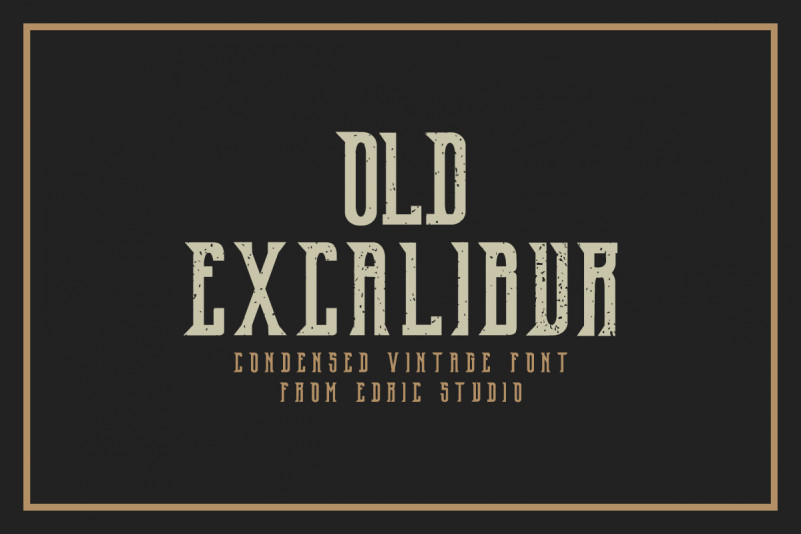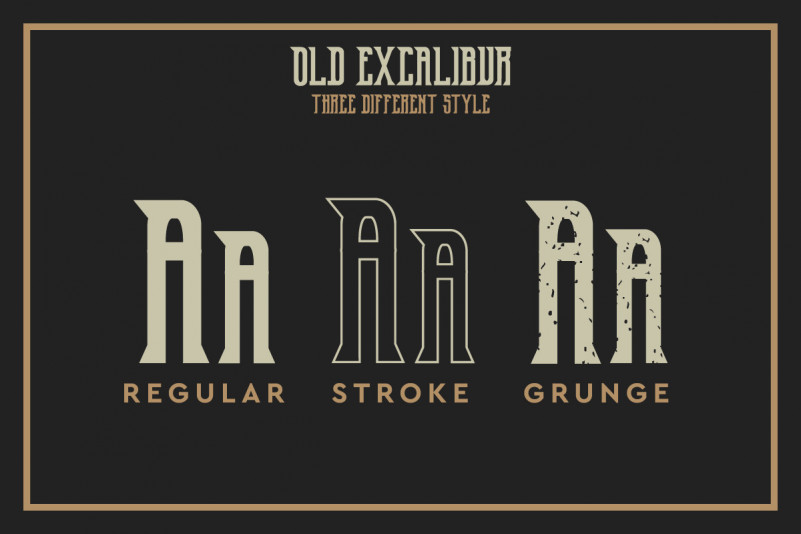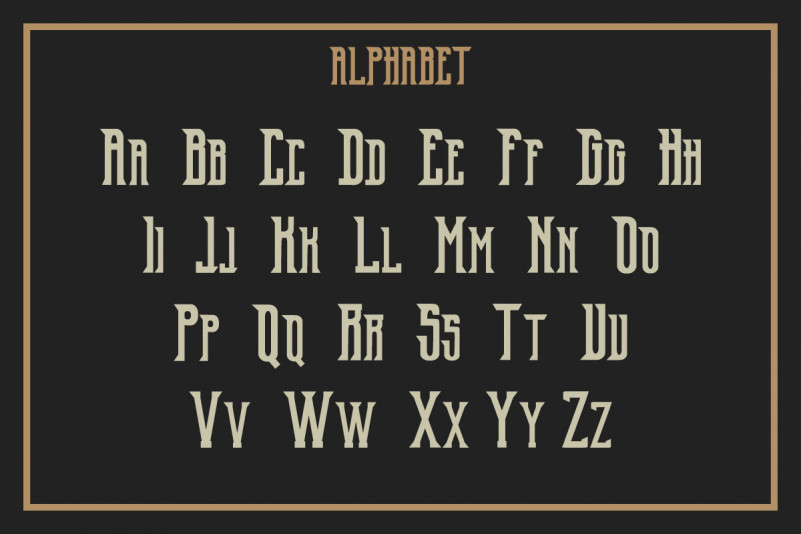
Hi Everyone! Introducing our newest font : Old Excalibur Typeface! This is a new vintage sans typeface. It has a fresh, elegant, unique and stylish glyph.
It has 4 styles: regular, grunge, stroke, vintage This font will be Great for branding, logo, stationery, business card, signage, flyer, brochure etc. There are many industries that is suitable for this font : cafe, music, restaurant, motorcycle, racing, etc